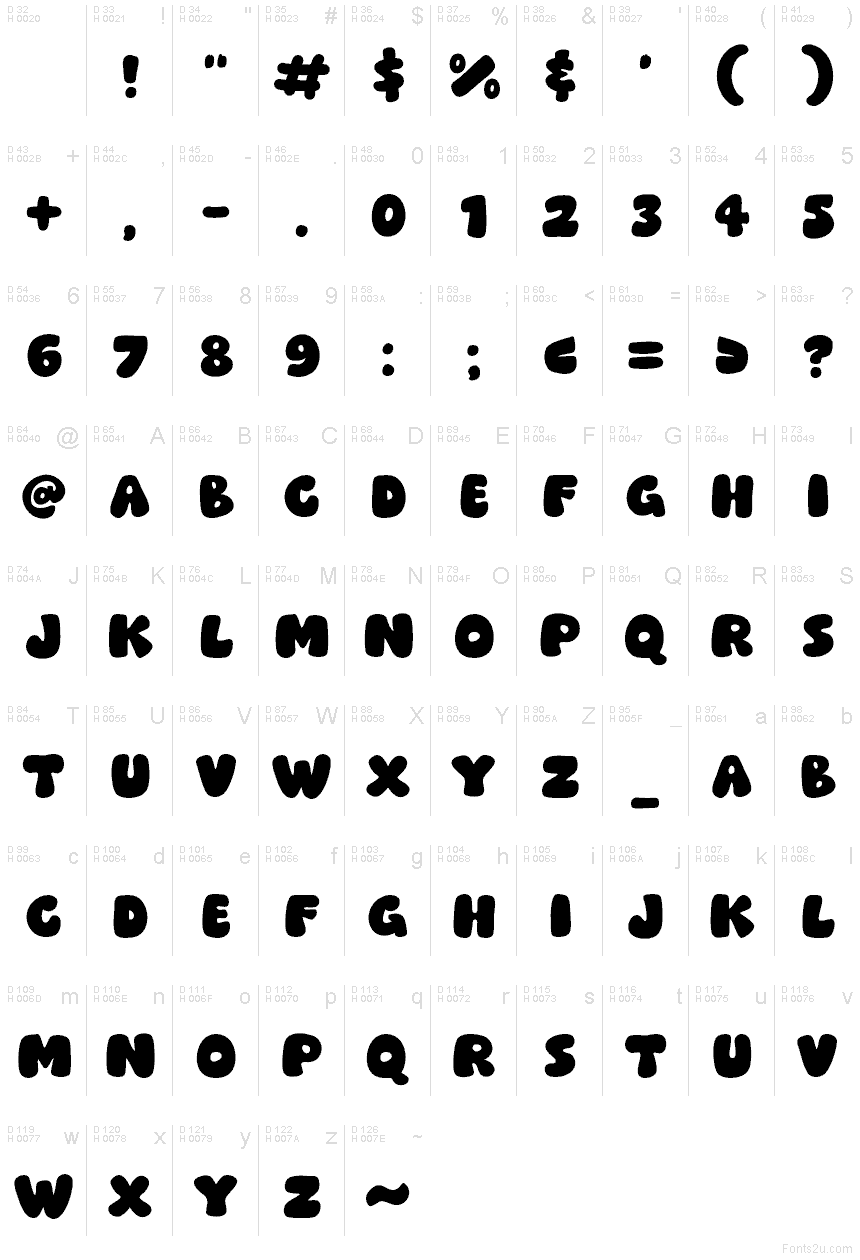
Funky Catch
Funky Catch font by MJType is a free cartoon display typeface. Thick, pillowy forms and snug spacing give it that squishy, candy-coated feel—like letters piped from frosting. The strokes stay bold and even, so words read as cheerful blocks of color, while the rounded edges keep everything friendly and bouncy without getting messy.
Using Funky Catch, headlines pop on kids’ posters, party invites, snack or candy packaging, toy branding, YouTube thumbnails, and playful stickers. This free font shines at big sizes; keep body copy in a simple sans to let the bubbly shapes lead. Try high-contrast color fills or a soft shadow to make its inky silhouettes really jump.